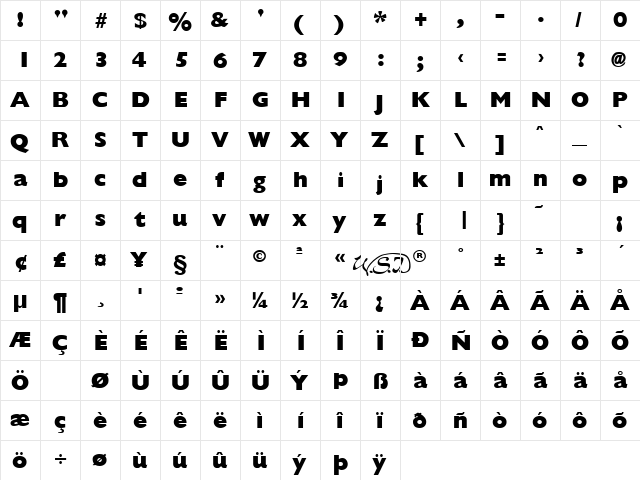
Giligan ExtraBold Regular
Design Context for Giligan ExtraBold Typeface
Giligan ExtraBold is a composed and adaptable typeface that performs quietly and consistently across a wide range of design contexts. The heavy weight commands attention and anchors typographic hierarchies.